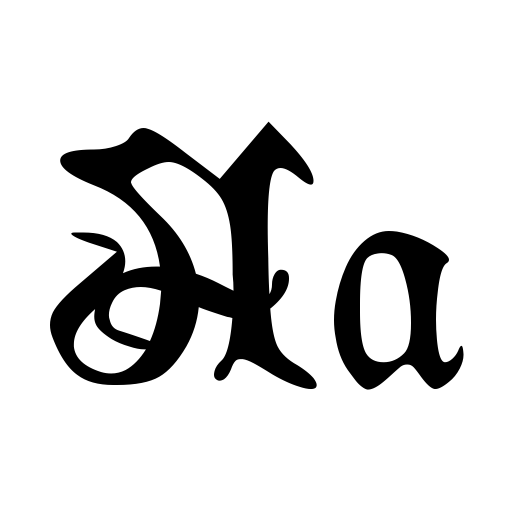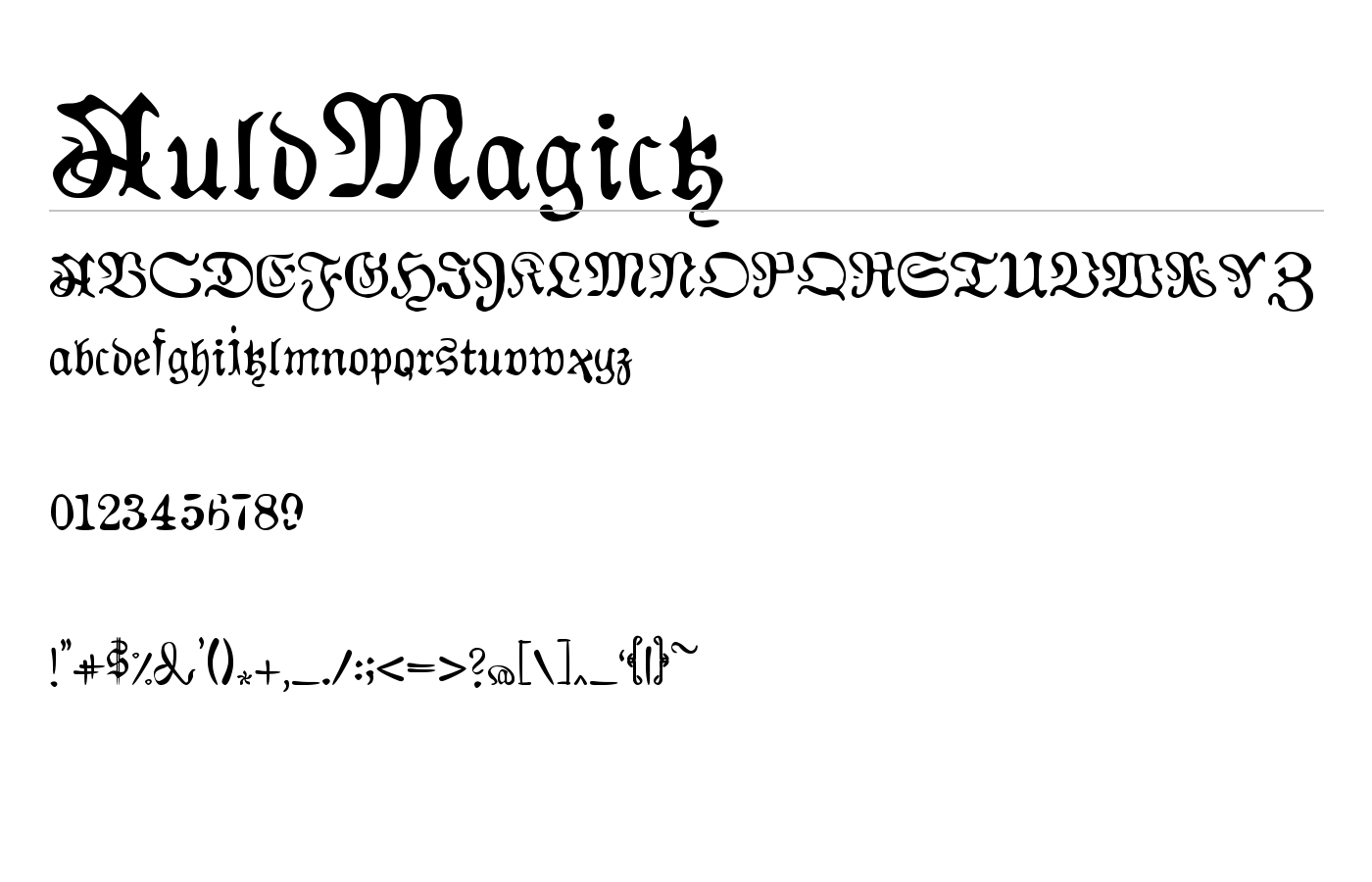
AuldMagick is a decorative blackletter-style font with a strong medieval and gothic character, featuring heavy, irregular strokes and intricate, sharp details. Its condensed letterforms and high stroke contrast give it an old-world, mystical feel, making it perfect for fantasy themes, historical branding, or any design seeking a mysterious and antique atmosphere. This font works best in headlines, logos, or display uses where its unique ornamental style can truly stand out.
AuldMagick Font
About AuldMagick Font
| Font family | AuldMagick Font |
| Designer | AgaSilva |
| Font subfamily | Condensed |